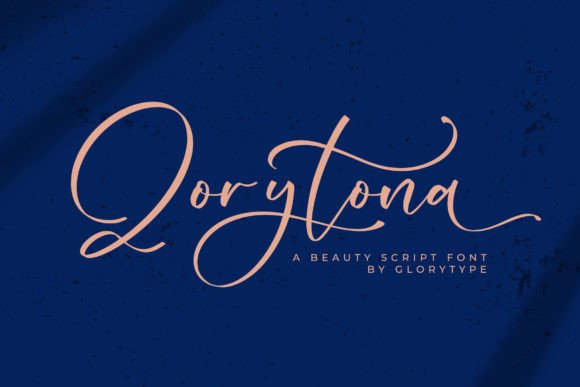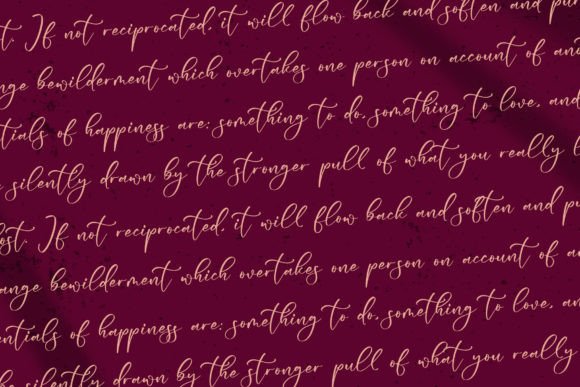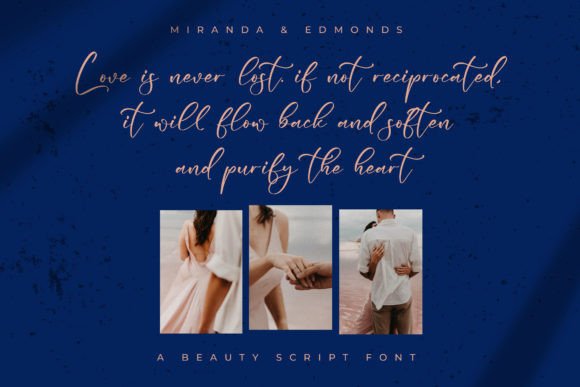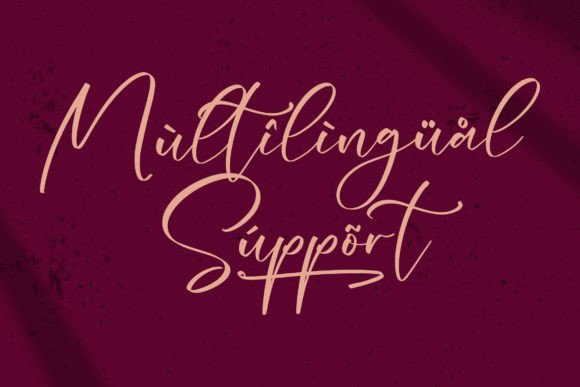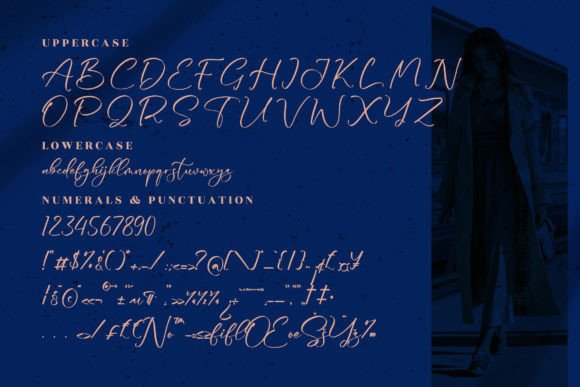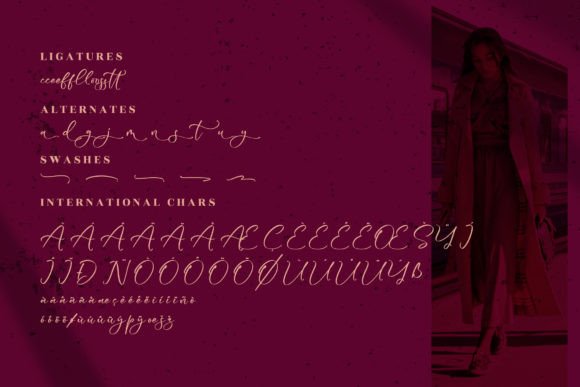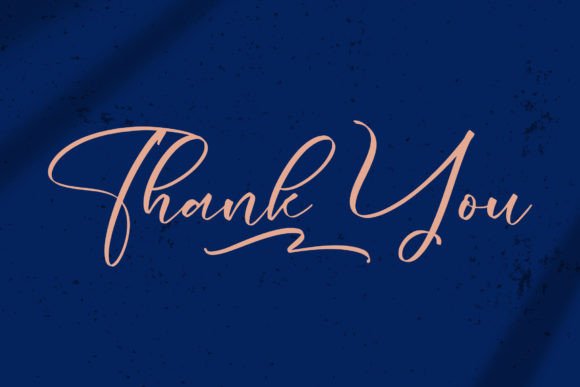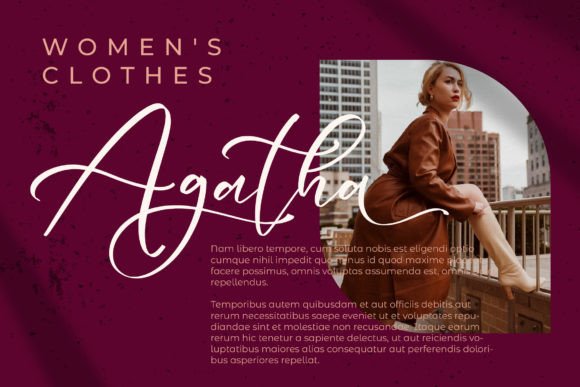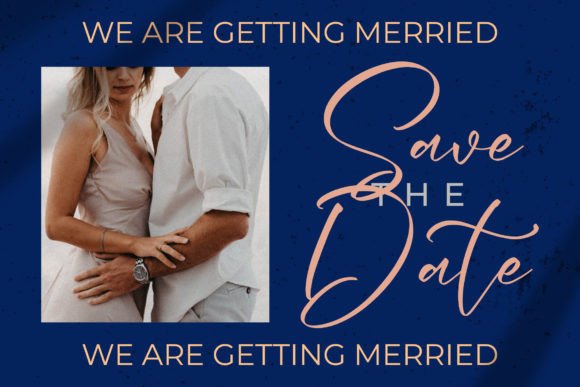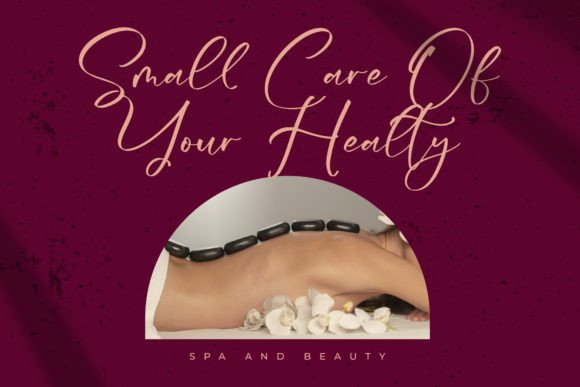
Qorytona Font
Qorytona Font: Elegant Script for Versatile Designs
“Qorytona” is a beautiful script font that adds elegance to a wide variety of design projects. It’s perfect for various applications, from logos to special event materials.
Key Features of Qorytona Font
• Elegant Style: Qorytona brings a touch of sophistication to designs.
• Versatile Use: Suitable for many projects, including branding and packaging.
• Beautiful Script: Creates a harmonious and captivating atmosphere in typography.
Qorytona’s elegant style is ideal for creating sophisticated logo designs and branding materials that convey refinement.
Invitations and Greeting Cards
Use Qorytona to design beautiful greeting cards and invitations that capture attention with their charm.
Product Packaging and Labels
The font’s refined look makes it perfect for creating eye-catching product packaging and labels.
Why Choose Qorytona Font?
Qorytona offers more than just beautiful letters. Here’s why it stands out:
• Enhances overall aesthetics with its elegant script style
• Conveys a sense of beauty and sophistication
• Adapts well to various design themes and creative endeavors
By using Qorytona, you open up new design possibilities. Its elegant style works well in many contexts, from book covers to poster designs. The font’s ability to convey sophistication can inspire creative ideas and help you approach projects from a fresh perspective.
Qorytona in Modern Design Trends
Qorytona aligns perfectly with contemporary design trends that favor elegant simplicity. Its script style adds a personal touch while maintaining a sophisticated feel, making it particularly effective for brands targeting upscale markets or those aiming for a refined, modern image.
If you’re looking for a font that combines beauty with versatility, Qorytona is an excellent choice. It’s perfect for adding a touch of elegance to your work, especially for projects that need a sophisticated, timeless feel.
Explore how Qorytona can transform your designs. From branding materials to special event stationery, this font brings a refined and captivating quality to your creations.